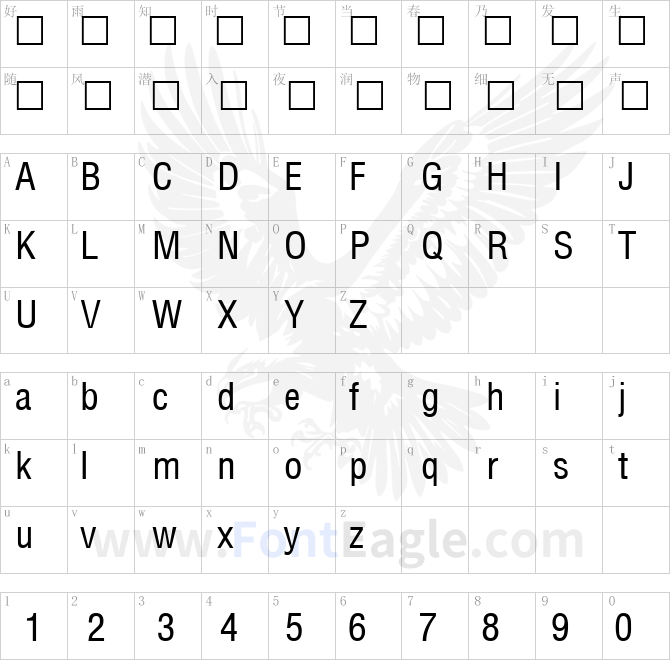
ArenaCondensed Regular.ttf Font Image
ArenaCondensed Regular.ttf Base Font Information
- Font name:ArenaCondensed
- Font Subfamily ID:Weatherly Systems, Inc. ArenaCondensed Regular
- Font Full Name:ArenaCondensed Regular
- Font Version:The IMSI MasterFonts Collection, tm 1995 IMSI
- Postscript:ArenaCondensed
ArenaCondensed Regular.ttf Characters Sample